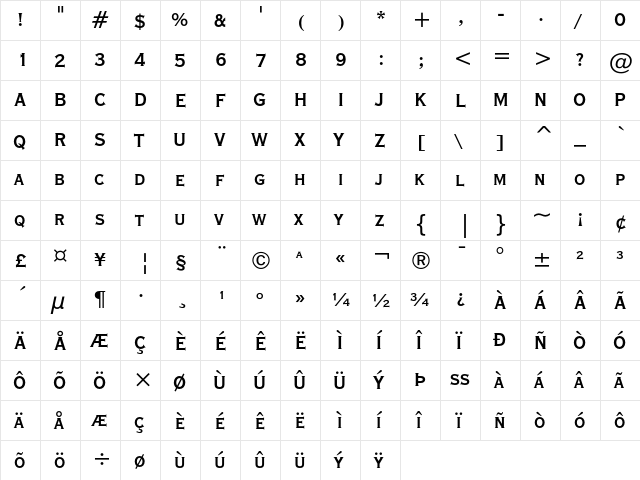
Copperplate Gothic Bold Condensed Font Preview
Design Context for Copperplate Gothic Typeface
Copperplate Gothic takes a clean, functional approach — its unadorned letterforms prioritise legibility and work reliably across screen and print environments. The heavy weight commands attention and anchors typographic hierarchies. Its narrow stance lets it pack a punch even in space-constrained designs.
Well-suited to navigation labels, product packaging, and anywhere legibility at scale is essential.
Font Pairing: Use Copperplate Gothic for headlines alongside a lighter-weight sans or serif for body copy to establish clear visual hierarchy.
Pro Tip: Use Copperplate Gothic tightly set in headlines and banners — its condensed proportions make it ideal for maximum impact in minimum horizontal space.